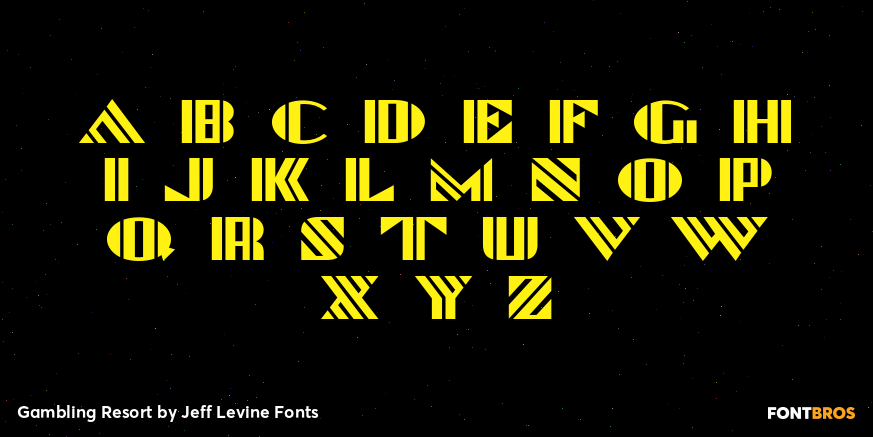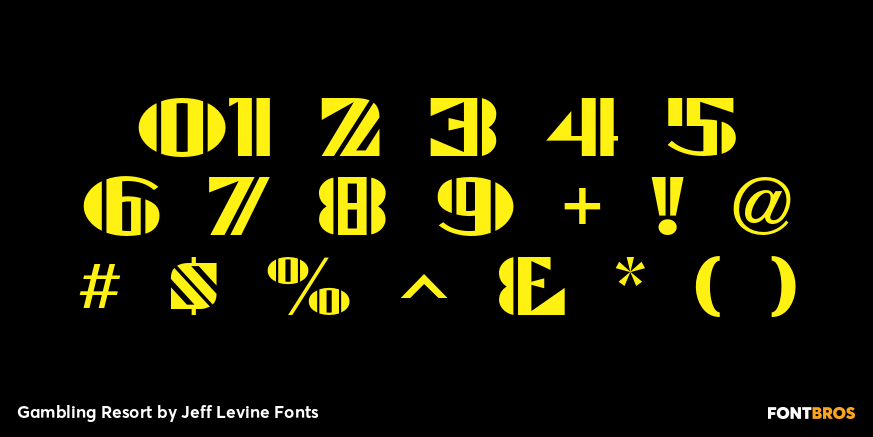
Gambling Resort
Sheet music for the song 'Beyond the Blue Horizon” from the motion picture 'Monte Carlo” had the movie title in hand-lettering reminiscent of the Futura Black style, but with an inline stripe through each character.
These few letter examples were the basis for Gambling Resort JNL and conjure up the Nouveau Riche spending their nights in Monte Carlo packing the roulette wheels, blackjack tables and slot machines.